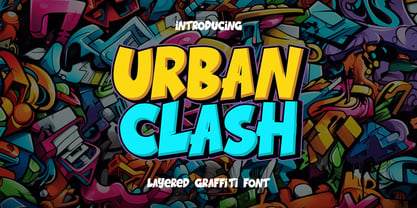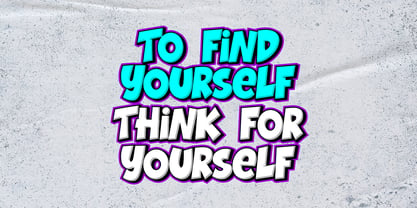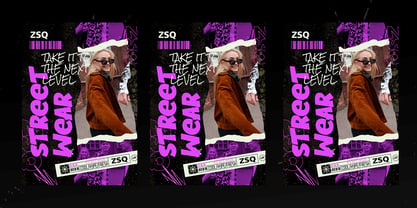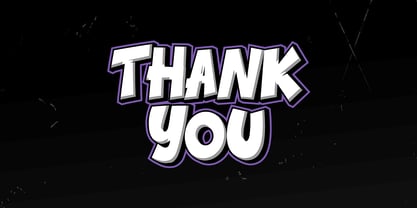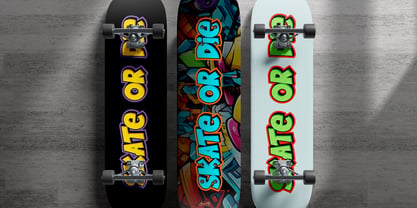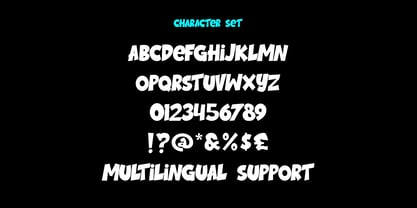
Urban Clash Graffiti
von Sipanji21
Die Schriftfamilie Urban Clash Graffiti wurde von Sipanji entworfen und von Sipanji21 veröffentlicht. Urban Clash Graffiti enthält 3 Stile und Familienpaketoptionen. Mehr über diese Familie
"Urban Clash is an awesome graffiti font that combines bold, expressive style with a striking 3D effect. Featuring three unique layers—solid, inner, and extrude—this font allows you to create dynamic, eye-catching designs with depth and dimension. Its urban-inspired aesthetic is perfect for projects that need a raw, edgy vibe, such as streetwear, posters, album covers, event promotions, and creative branding. Urban Clash brings the energy and attitude of street art into your designs, making it a powerful choice for anyone looking to make a bold statement with their typography."